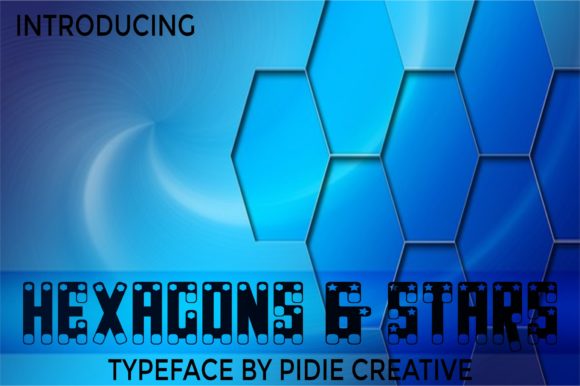
Step into a realm of enchantment and whimsy with Hexagons & Stars Font, a display font that captivates imaginations and sparks creativity. Designed by Pidie_Creative, this unique font family dances with playful geometric shapes, adorning each letter with a hexagon initial and a twinkling star second letter, creating a visual symphony.
Unleash your inner child and let Hexagons & Stars ignite your imagination. Dive into the world of storytelling, crafting whimsical posters, vibrant magazine titles, eye-catching logos, and enchanting designs. Each letterform is a miniature work of art, a perfect harmony of angles and curves, stars and hexagons.
Hexagons & Stars is not just a font; it's a magic wand that transports you to a realm of creative possibilities. Its playful charm is irresistible, inviting you to craft designs that speak to the heart, capturing the innocence of childhood and the wonder of dreams.
The font's versatility is as limitless as the starry sky. It dances effortlessly from posters advertising delightful products to magazine covers that demand attention. Logos adorned with Hexagons & Stars radiate a sense of fun and innovation, while designs infused with its charm captivate audiences with their playful elegance.
Immerse yourself in the world of Hexagons & Stars Font, where creativity blooms with every letter you type. Let your imagination soar, let your dreams take flight, and turn your designs into enchanting tales that captivate hearts and minds. Embrace the magic of Hexagons & Stars and embark on a creative journey that knows no bounds.